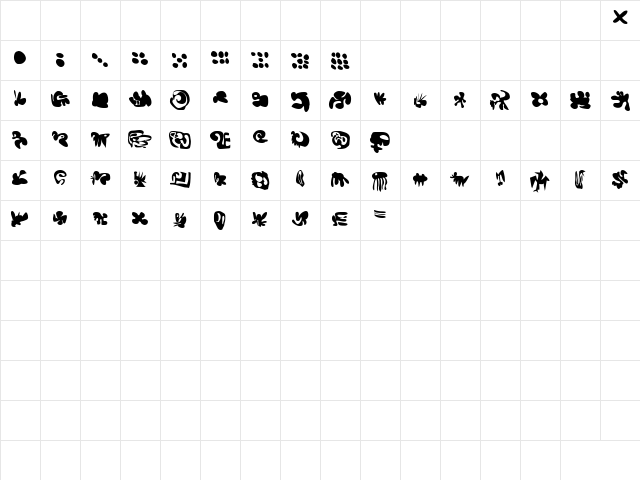
Egg Regular
Design Context for Egg Typeface
Egg is a composed and adaptable typeface that performs quietly and consistently across a wide range of design contexts.